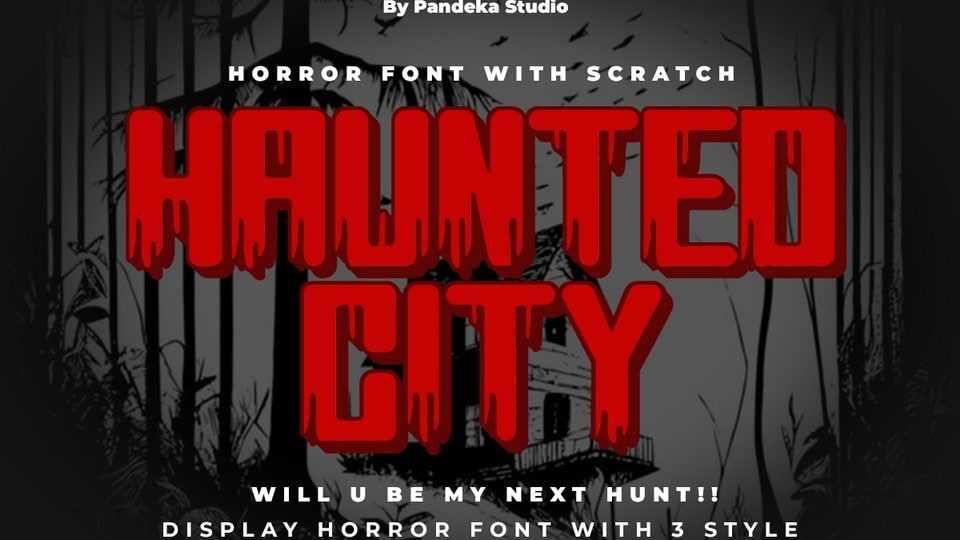
Download Haunted City font, a terrifying horror typeface designed to send chills down your spine, perfect for creating a dark atmosphere, ideal for Halloween celebrations.